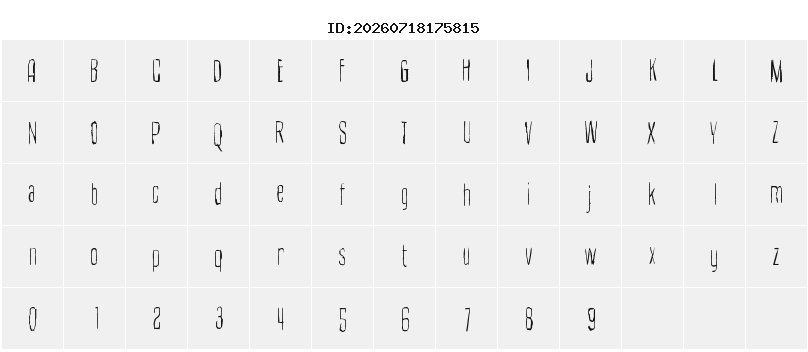
Cult of the toucan Preview
• Font Name: Cult of the toucan
• Designer: junkohanhero
About Cult of the toucan.ttf
Cult of the toucan.ttf is a modern, elegant sans-serif font designed for ultimate readability and visual harmony. Perfect for branding, headlines, web design, and print materials.